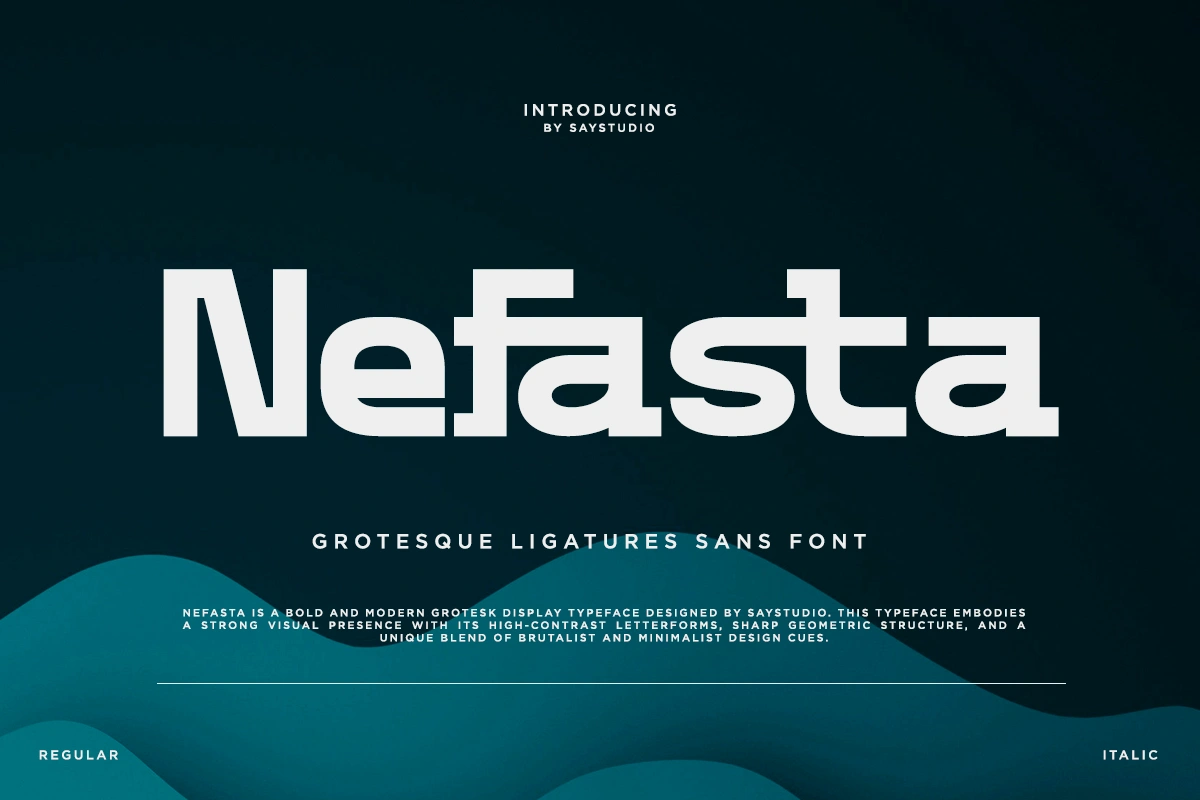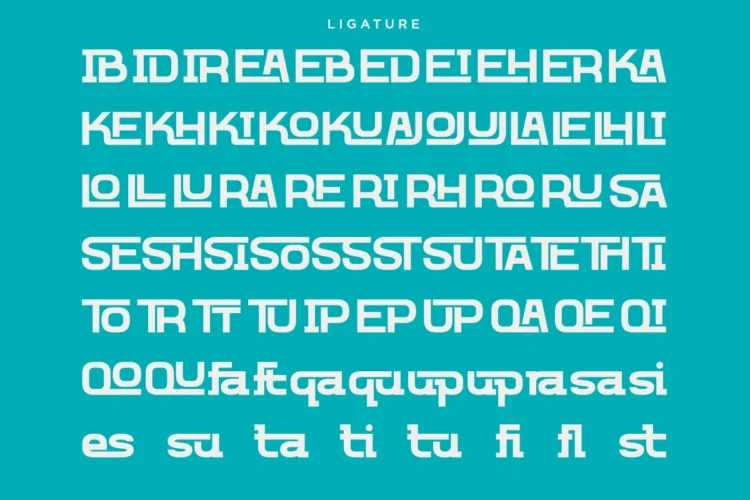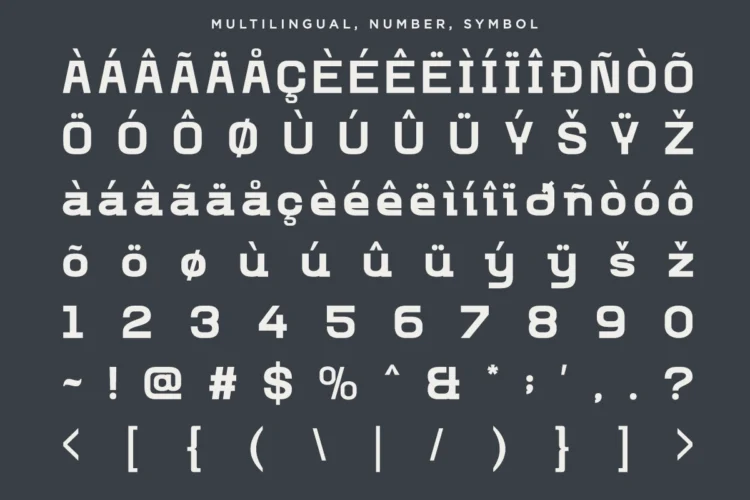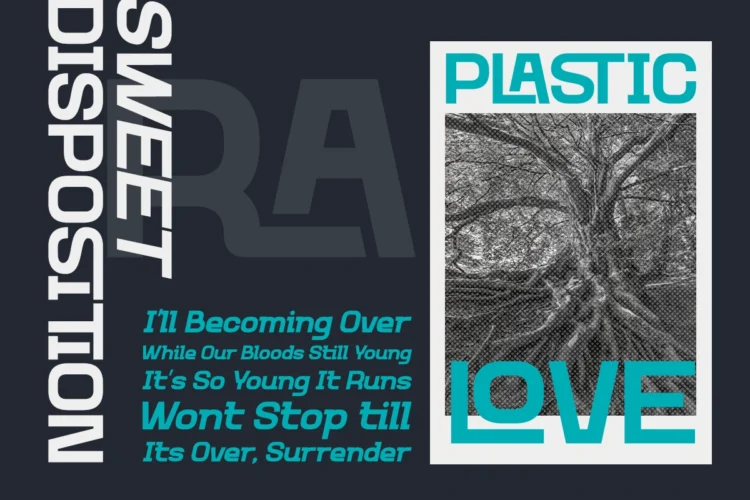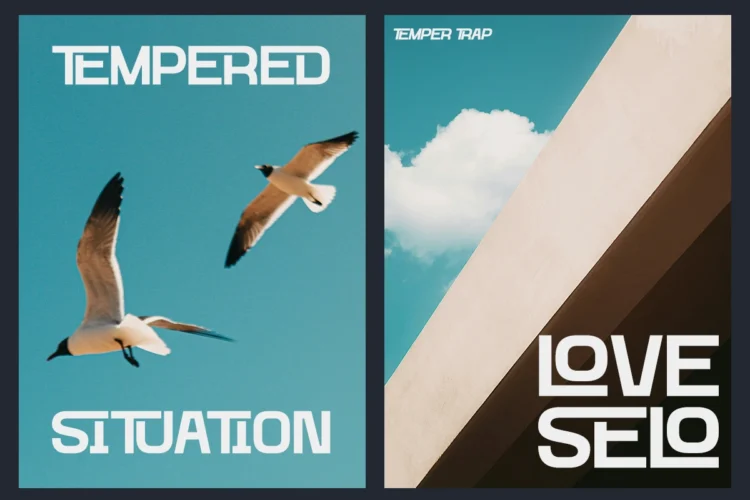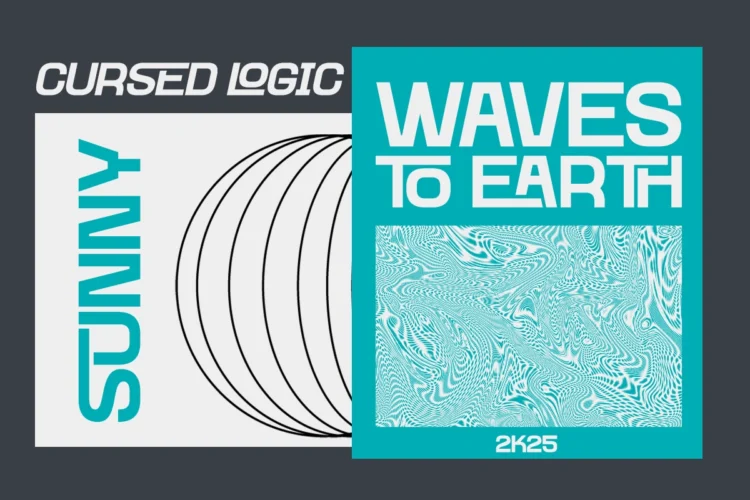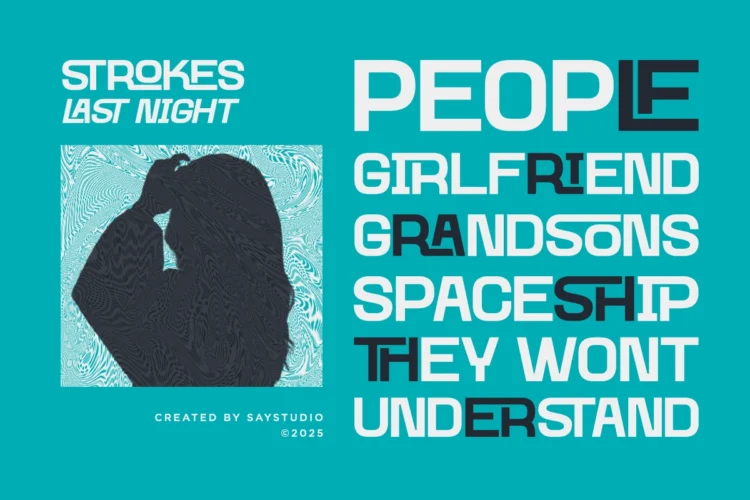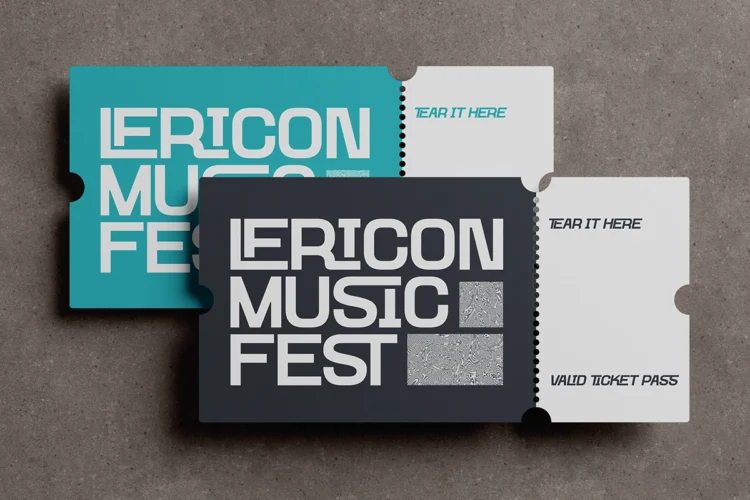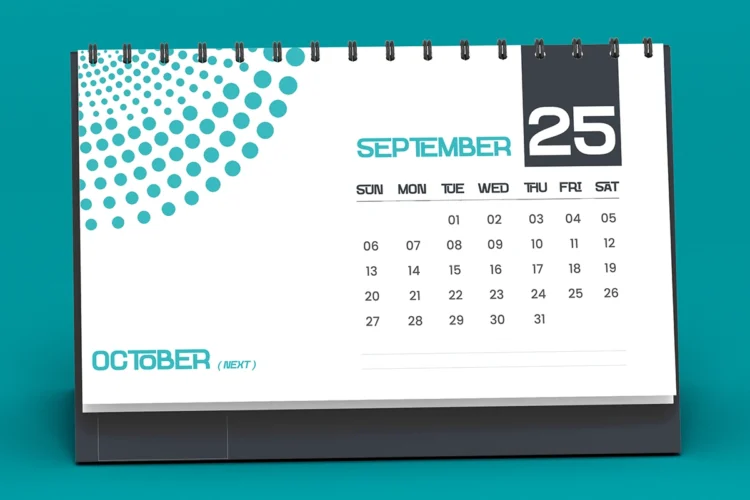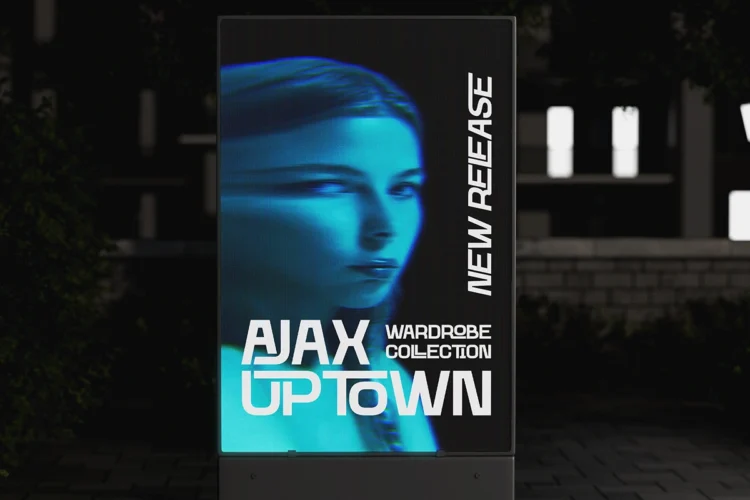
Nefasta – Sans Serif Font
Nefasta is a bold and modern grotesque sans serif font with a unique twist—stylish ligatures that create a distinct and sophisticated look. It combines clean, geometric lines with creative letter connections, making it perfect for contemporary branding, headlines, posters, and digital design. Whats Included : - Nefasta Regular ( OTF, TTF, WOFF ) - Nefasta Italic ( OTF, TTF, WOFF ) - Ligature Set - Multilingual, Number, Punctuation